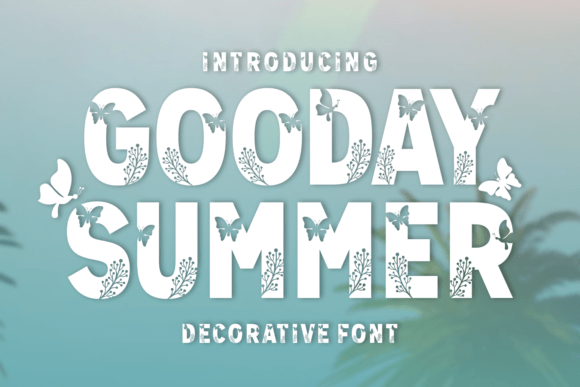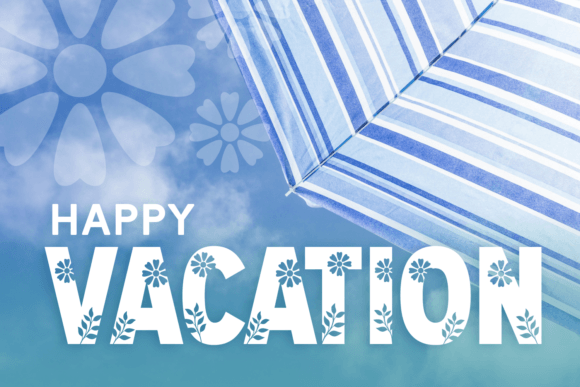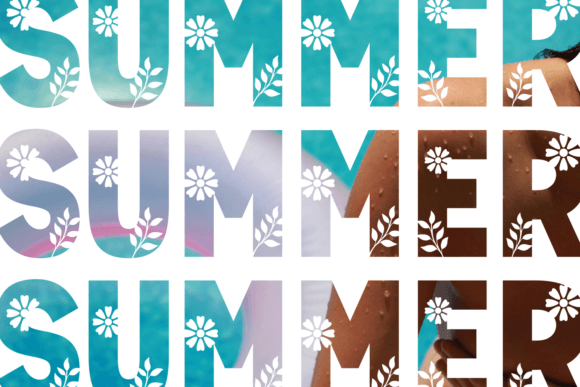
Gooday Summer Font
Gooday Summer is a stunning decorative font that combines elegant letterforms with intricate floral and butterfly motifs. Each character is adorned with delicate flowers and graceful butterflies, creating a whimsical and enchanting aesthetic. The font exudes a sense of beauty and romance, making it perfect for creating captivating designs for weddings, garden parties, feminine branding, and more. With its intricate details and ornate style, “Gooday Summer” adds a touch of sophistication and charm to any typographic composition. Whether used for invitations, greeting cards, posters, or branding materials, this font brings a sense of magic and enchantment to every project.